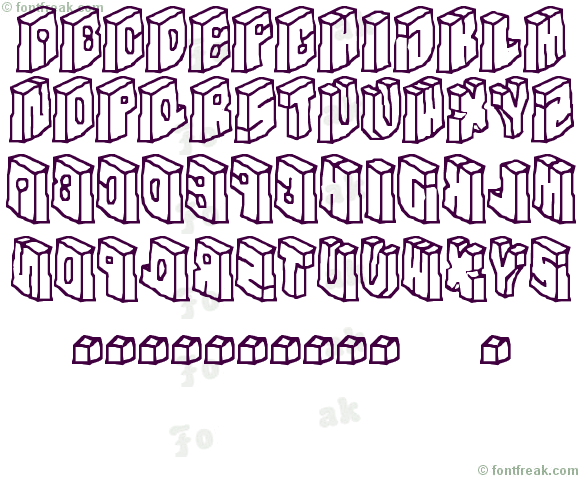
In The Flesh
In The Flesh by Mr. Fisk is a striking display font that captures attention with its unique three-dimensional style. This freeware typeface features bold, blocky letters that seem to pop off the page, thanks to its sharp angles and distinctive shadowing. The stroke weight is substantial, giving each character a robust presence, while the decorative elements add an air of whimsy and creativity. The spacing between the letters is well-balanced, allowing for easy readability without sacrificing its artistic flair.
This font is ideal for a variety of use cases. It works wonderfully for movie posters, where its dramatic flair can enhance the visual storytelling. Additionally, In The Flesh is perfect for eye-catching restaurant menus, providing a playful yet sophisticated vibe. Graphic designers can utilize this font for promotional materials, adding a touch of originality to flyers and banners. Furthermore, it can be an excellent choice for social media graphics, helping content creators stand out in crowded feeds.
Targeting graphic designers, small business owners, and content creators, In The Flesh appeals to anyone looking to infuse their projects with a strong personality. Its unique aesthetic makes it suitable for those who wish to convey a message that is both bold and playful. The font's inherent creativity invites experimentation, making it a favorite among those who appreciate distinctive design.
What sets In The Flesh apart is its ability to blend fun with functionality. This font is not only visually engaging but also versatile, making it a valuable addition to any designer's toolkit. For those interested in incorporating this unique style into their work, the In The Flesh font free download offers a fantastic opportunity to explore its potential.